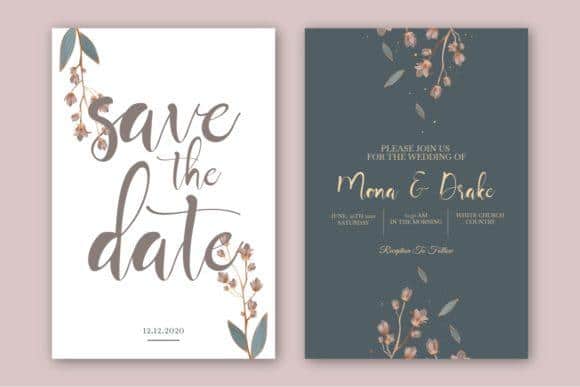
Mayla is a beautiful handwritten script font. This font will look outstanding in any context, whether it’s being used on busy backgrounds or as a standalone headline!